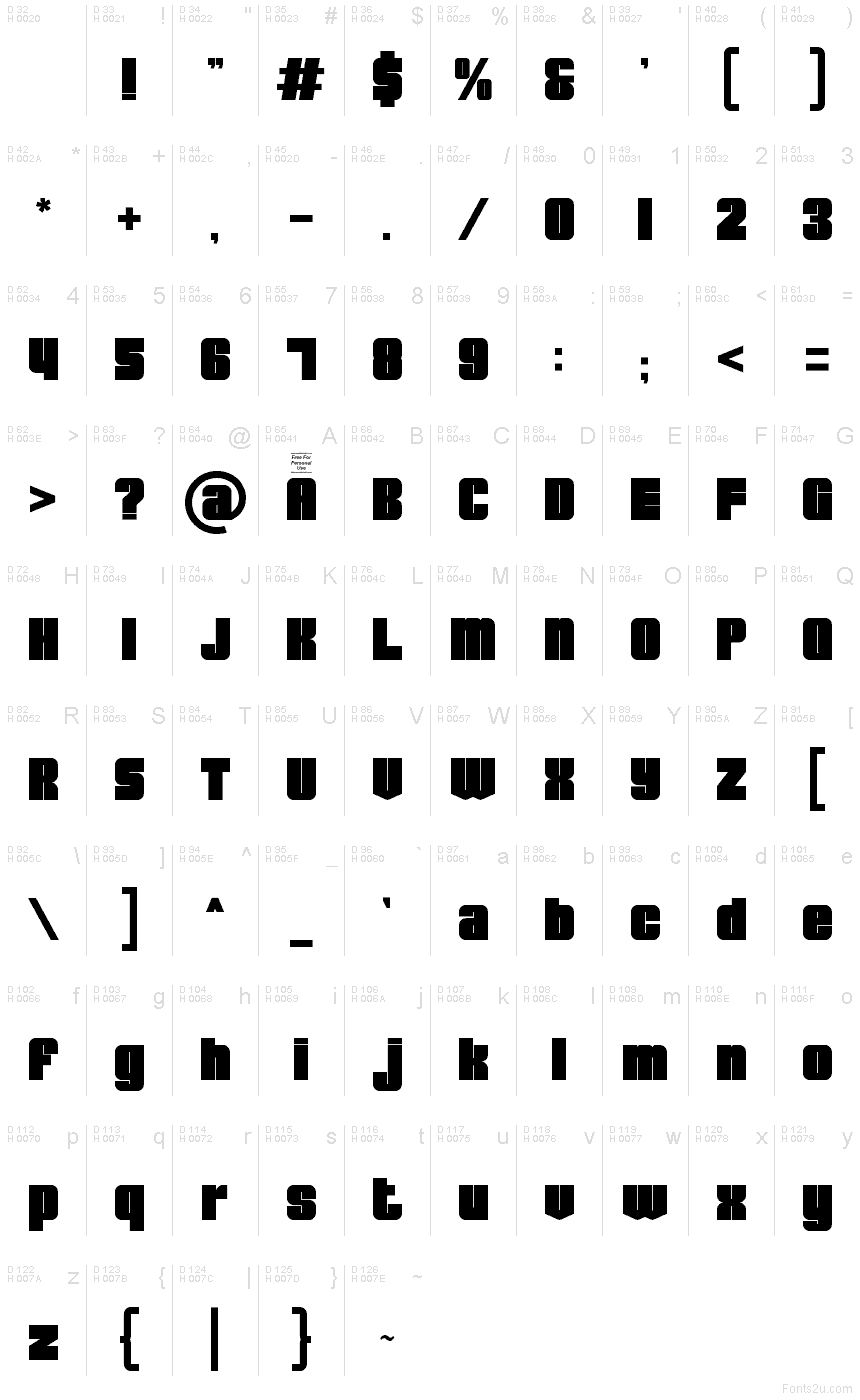
Rainz
Rainz font by ErmediaStudio is a free sans serif font. Built like chunky blocks with smooth outer corners, it breaks the mass with crisp vertical cut-ins—little “rain” channels that add breath and rhythm. The result feels bold yet surprisingly agile, a monolithic voice that still lets light through, great when you need impact without shouting.
Using Rainz, headlines snap on posters, esports branding, streetwear tags, packaging, album art, and bold signage. The tight spacing and clear internal cuts hold up at large sizes and on backlit screens. Pair this free font with a clean, light-weight grotesk for body copy to let the heavy forms do the talking.